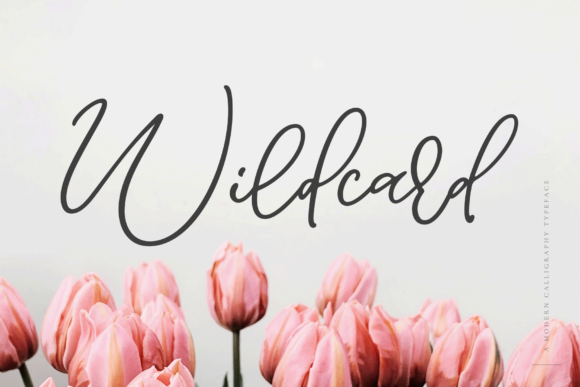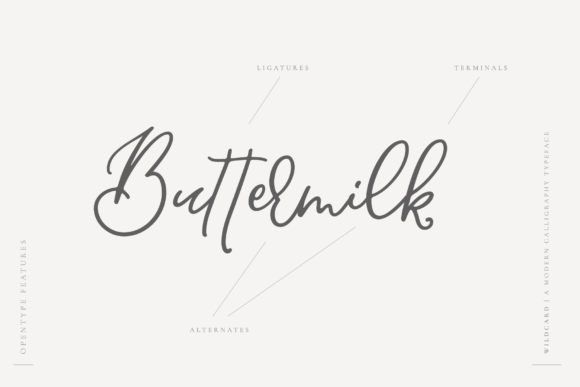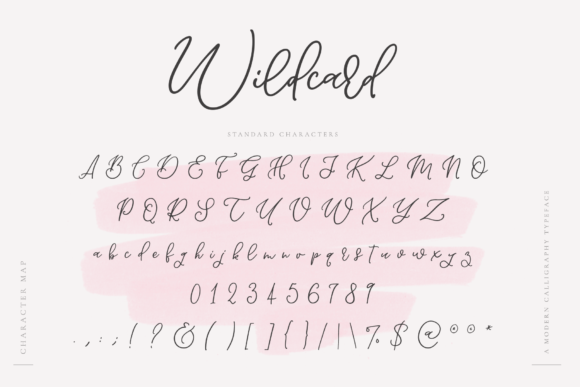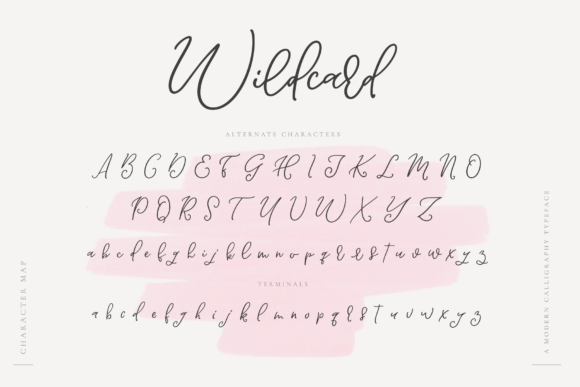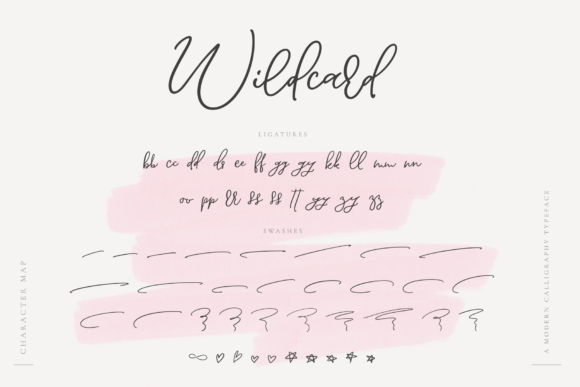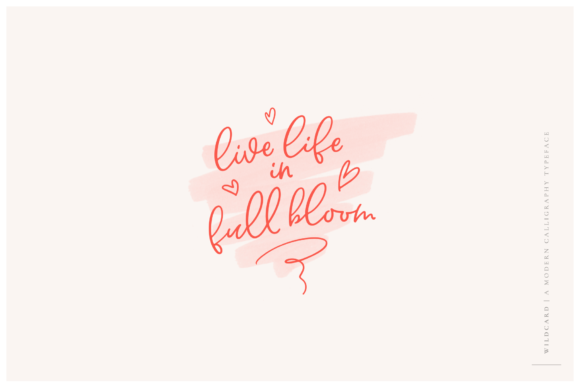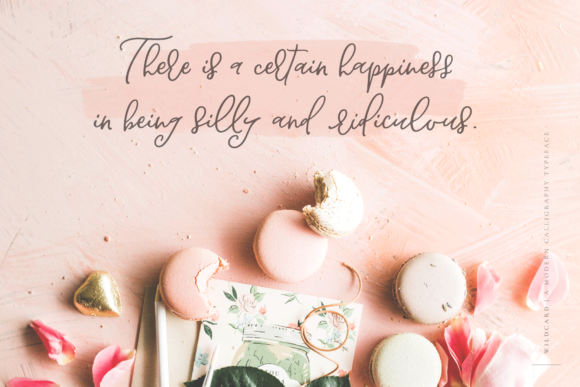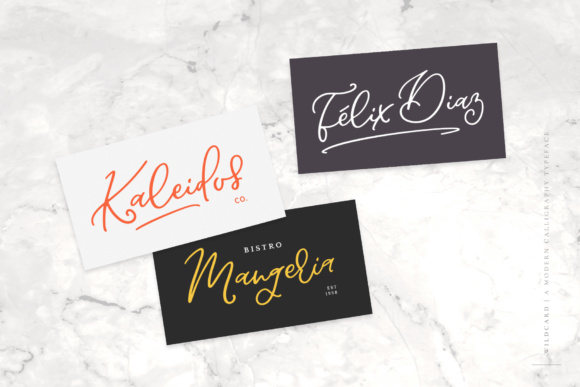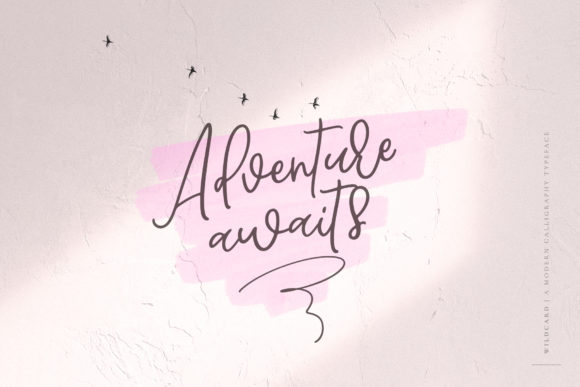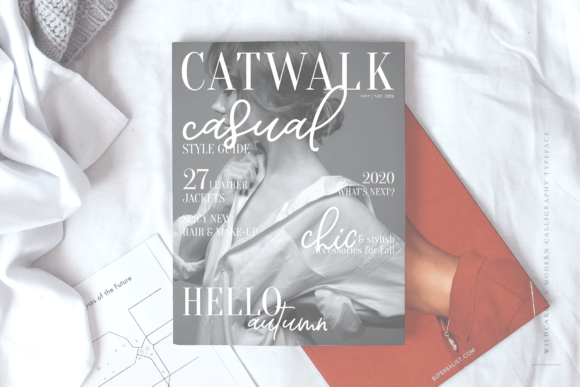
Wildcard Font
About Wildcard Font
Wildcard is an elegant modern calligraphy font with a bouncy baseline. It will add a romantic touch to any crafting project!